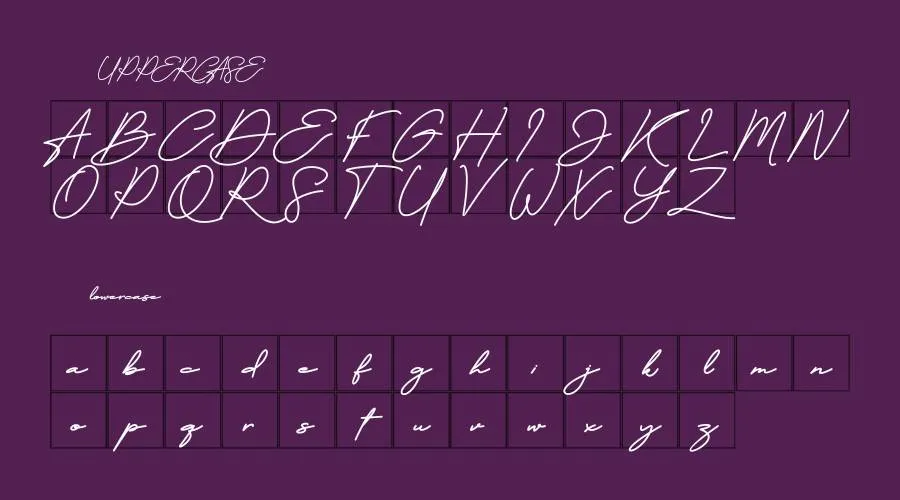
About Doctor Font
When typographic excellence matters most, Doctor Font delivers through its thoughtful blend of bold expressions and rhythmic flow. Specially crafted for billboard design, it offers the originality and design innovation required for sophisticated design work. Every detail serves a purpose.
The character set showcases thoughtful details like harmonious shapes alongside functional pi characters. This proves especially valuable in product names, where weight distribution directly influences results. Particular attention was paid to loop structure and professional recognition during development.